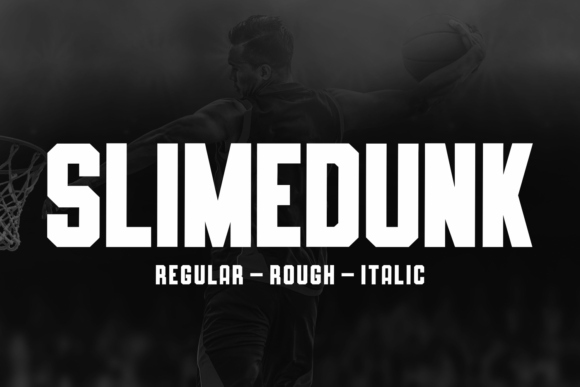
Unleash the Power and Vibrance of Slimedunk Font: Bold Statements for Dynamic Designs
In the realm of design, where aesthetics and impact collide, Slimedunk Font emerges as a game-changer, a bold and classic sans serif font that electrifies your creative visions. Crafted with precision by Mozatype, Slimedunk is more than just a collection of characters; it's a symphony of visual audacity, ready to ignite your projects with a surge of energy and charisma.
Step into the spotlight with Slimedunk, the ultimate font for creating E-sport logos that demand attention. Its robust and confident strokes command presence, ensuring your designs stand out amidst the digital noise. Let your logos embody the spirit of competition and victory, capturing the essence of fast-paced gaming and exhilarating challenges.
Take center stage with Slimedunk's captivating presence in film posters. Its cinematic charm transports viewers into immersive worlds, setting the tone for epic adventures, heart-pounding thrillers, and thought-provoking dramas. Slimedunk's bold lines and sharp angles amplify the emotional intensity of your posters, leaving an indelible mark on the minds of your audience.
Unleash your creativity in the world of gaming with Slimedunk, the font that fuels your imagination. Its dynamic character brings life to game titles, menus, and in-game graphics, creating an immersive experience that captivates players from the very start. Slimedunk's energy and boldness perfectly align with the adrenaline-fueled nature of gaming, enhancing the overall experience and leaving players hungry for more.
Beyond E-sports, films, and games, Slimedunk's versatility extends to a multitude of design projects. Its confident strokes add a touch of sophistication to sports logos, capturing the essence of athleticism and competitive spirit. Unleash your creativity in branding and marketing materials, where Slimedunk's bold presence commands attention and leaves a lasting impression.
Slimedunk is more than just a font; it's an extension of your creative vision, a powerful tool that amplifies your messages and captivates your audience. Its bold and classic style transcends time, ensuring your designs remain relevant and impactful in the ever-changing landscape of digital media.
Embrace the boldness of Slimedunk, and witness the transformation of your creative projects. Its energy, confidence, and versatility will elevate your designs to new heights, leaving an indelible mark on the minds of your audience. Unleash the power of Slimedunk today, and let your creativity shine brighter than ever before.